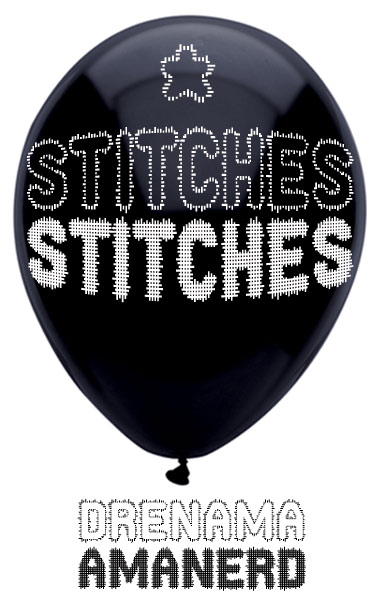
FS Amanerd
Cloned from FS Drenama by kix.
Dark twin of drenama.
Awesome. Your sample rocks.
I noticed your H in the FS Collaboration 1 and I thought it was so good you should have based a whole set on it.
And now we have two sets: great achievement!
(On a side note, I would have expected the stitch ends to be rounded, to look less like a pixel-based font at larger sizes, but that is just my opinion)
yeah. i experienced with that, but i wanted it to be free from diagonals at the end :)
i usually don't stitch anything in a balloon, unless i want to get rid of it :D
That's Fontstruct for you. Impossible things achieved daily.
A great companion to drenama.
like I said before "Great Effect"!
Nice, simple effect. I would have expected you to make a steeper, straight slope on the diagonals of the A, V and W. Nice complementary set.
By the way, the name amanerd sounds sorta like "I'm A Nerd" so you might want to change the name. Otherwise awesome! 10+fav
hey winty5 :D the name was chosen on purpose, cause i totally am a nerd! There's an "inverted" version also called drenama...